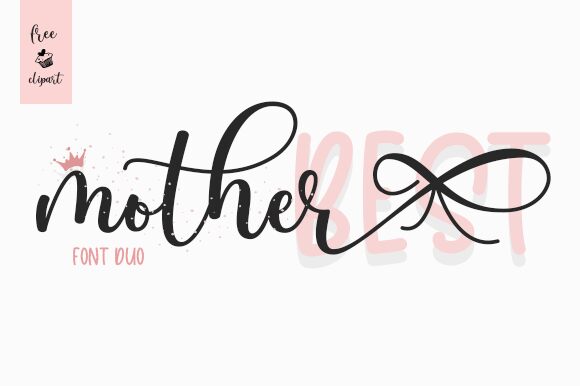
Mother Display
Mother Display, created by Fillo Graphic, is a stunning handwritten font that exudes elegance and sophistication. Its semi-light weight and condensed width make it ideal for projects that require a sleek and modern look. Whether you're designing a logo for a high-end fashion brand or creating eye-catching packaging for gourmet food products, Mother Display is the perfect choice. Its clean lines and unique flair will add character to any project, from posters to business cards to website headings. With Mother Display in your toolkit, your designs are sure to impress.